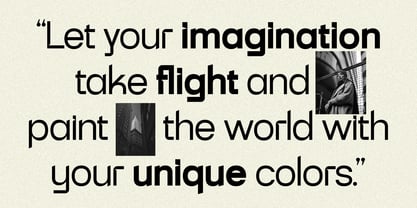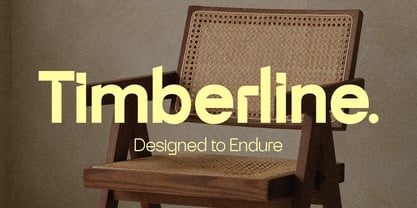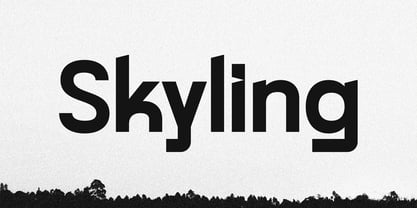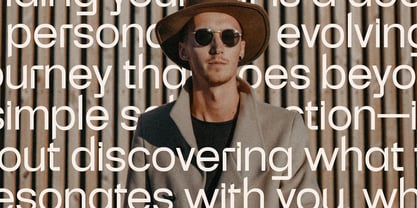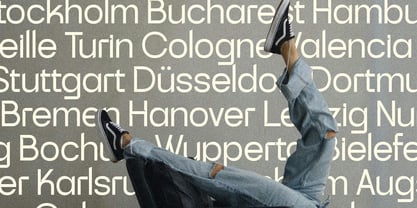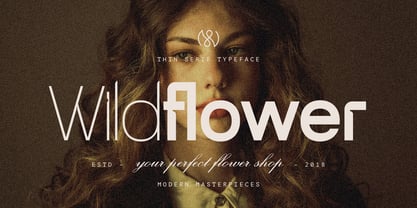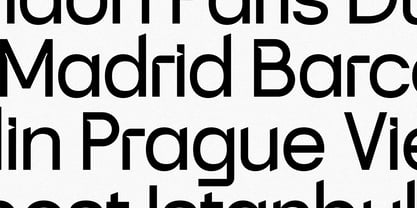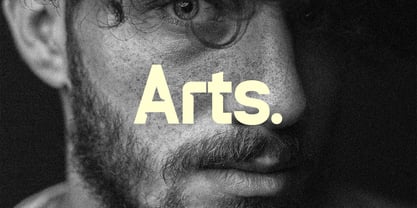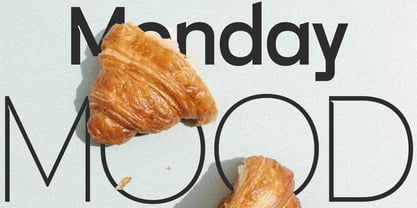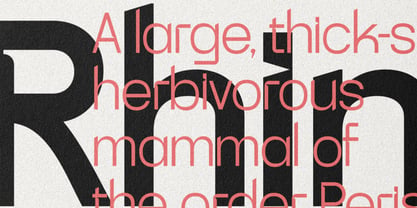
SLTF Skyling
Skyling – A Geometric Grotesk Sans with Unmatched Versatility
Meet Skyling, the geometric grotesk sans serif typeface designed for modern creators who demand precision, clarity, and style. With a nine-weight range from Thin to Black, variable font support, and over 100 languages covered, Skyling is more than a typeface—it’s a design tool built to adapt, evolve, and elevate.
Precision Meets Personality
Skyling walks the fine line between timeless minimalism and contemporary edge. Inspired by the clarity of classic grotesks, it refines those shapes with modern proportions and subtle details that bring warmth and character. Clean but never cold, structured but not rigid—every letterform is crafted for effortless legibility and stylistic impact.
Why Skyling?
✅ Nine Weights + Variable Font – Whether you need ultra-light sophistication or bold statement-making power, Skyling adjusts seamlessly to any design scenario.
✅ Geometric Yet Humanist – Crisp, clean shapes with just the right amount of warmth, making it versatile for both branding and editorial use.
✅ Optimized for Screen & Print – Whether displayed on high-resolution screens or in fine print applications, Skyling ensures readability and impact across all media.
✅ Multi-Language Support – With 100+ languages covered, your words will look stunning no matter where they’re read.
✅ Modern Typographic Features – Packed with carefully designed alternates, symbols, and OpenType features that enhance any layout.
Perfect For:
🔹 Brand Identity & Logo Design – Ideal for clean, impactful branding that balances professionalism with character.
🔹 Web & App Interfaces – Optimized for UI/UX, ensuring clarity in digital environments and across devices.
🔹 Editorial & Print Design – From magazines to posters, Skyling’s precise letterforms bring text to life with effortless readability.
🔹 Packaging & Advertising – Stand out on the shelves or in campaigns with Skyling’s bold, eye-catching presence.
Your Go-To Typeface for 2025 & Beyond
Skyling isn’t just another sans serif—it’s a foundation for modern design. Whether you’re creating a sleek corporate identity, an editorial masterpiece, or an immersive digital experience, Skyling provides the precision, balance, and style you need to bring your ideas to life.